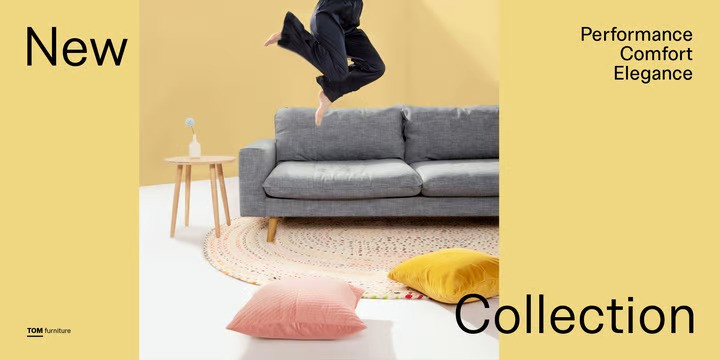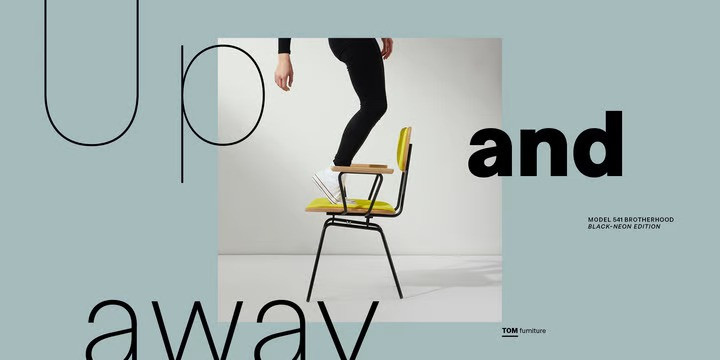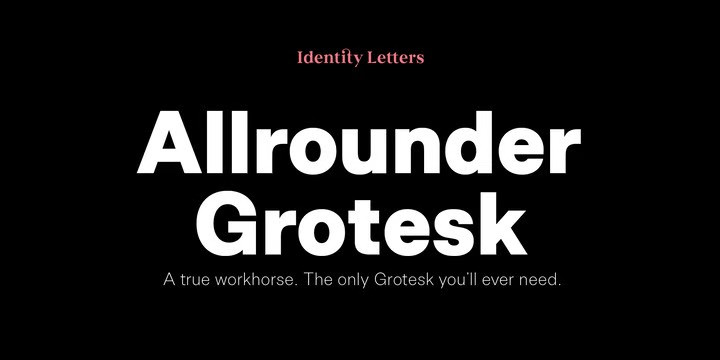
Allrounder Grotesk Font
Introducing Allrounder Grotesk Sans Serif Font, is a neutral, powerful Neogrotesk member of the Allrounder superfamily. An unobtrusive teamplayer as well as an excellent soloist, this hard-working sans-serif typeface is ready for any task you’ll throw it at.
A workhorse that lives up to its name, Allrounder Grotesk consists of ten weights ranging from a delicate Air to a powerful Black with 900+ glyphs per font. Each weight is accompanied by carefully hand-corrected italics.
Allrounder Grotesk supports more than 200 Latin-based languages, containing the complete “LatinPlus” glyph set developed by Underware. It also provides you with plenty of OpenType features and additional goodies: small capitals, ten sets of figures, case-sensitive forms, ligatures, superiors, fractions and arrows. Equipped like this, you’ll be ready for any kind of sophisticated typesetting scenario you might encounter.
With Allrounder Grotesk, you’ve got a sans that works great for body text, yet looks crisp and clean in headlines and display sizes. Whether annual reports, magazine and editorial layouts, nonfiction books, branding and packaging work, large-scale advertising, forms and contracts, or contemporary posters: Allrounder Grotesk is up for it.
This multitalented font family was developed in a 2-year process by Moritz Kleinsorge. It was the first release of the Allrounder superfamily, a series of typefaces sharing the same color and horizontal metrics (cap height, small cap height and x-height): a typesetting system whose components match each other perfectly. Any other part of this design kit, e. g., Allrounder Antiqua or Allrounder Monument, may be easily combined with Allrounder Grotesk.
Perfect Pairing: Allrounder Antiqua + Allrounder Grotesk
Allrounder Antiqua is the ideal complement to Allrounder Grotesk. They both share common vertical metrics and a common color. This allows you to pair both typefaces within the same layout—even within the same paragraph—without creating visual disruption. Head over to the Family Page of Allrounder Antiqua to get more information about this typeface.
Design Trick: Bilingual Design With the Allrounder Superfamily
Combining Allrounder Grotesk with Allrounder Antiqua is an ideal approach for bilingual designs, wherein both languages get the same emphasis yet are distinguished with two different typefaces. It’s also best practice to set headlines in a different typeface than the body text if they harmonize with each other. Allrounder Grotesk and Allrounder Antiqua provide you with the perfect pair for this purpose.
In any kind of design, in any type of medium, working with Allrounder fonts is effortless. That’s why Allrounder got its name.